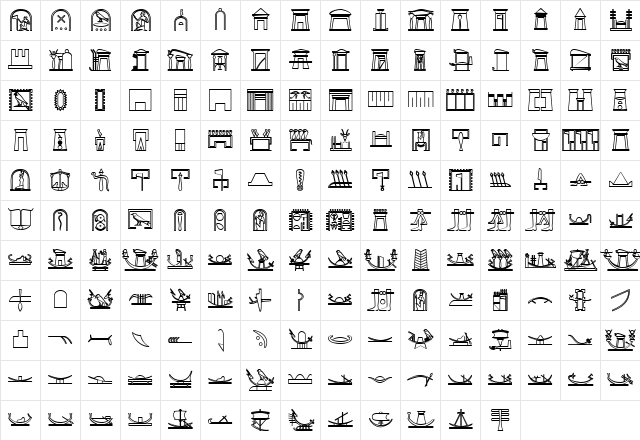
Complete GlyphExtLibN Bold glyph index. Displaying only characters natively supported by GlyphExtLibN Bold font.
GlyphExtLibN is a composed and adaptable typeface that performs quietly and consistently across a wide range of design contexts. Its bold stroke weight gives it real presence on the page.